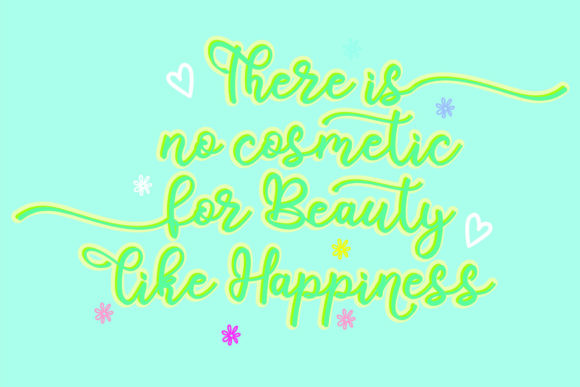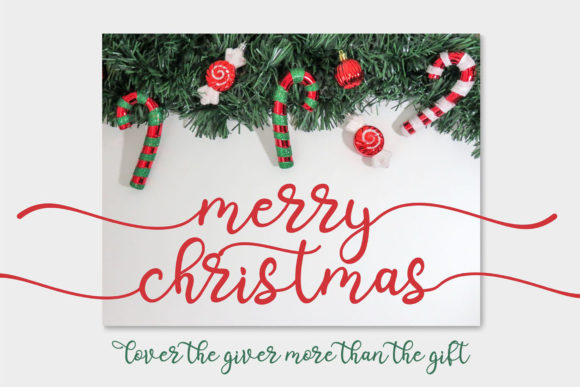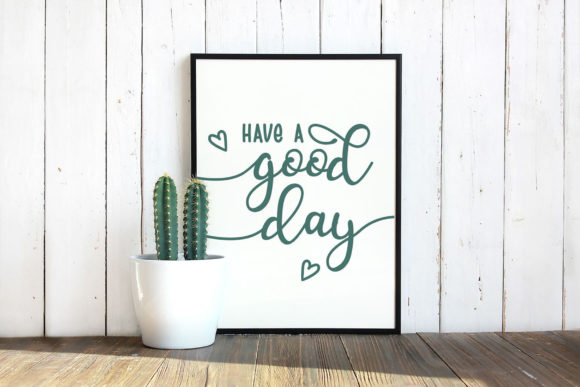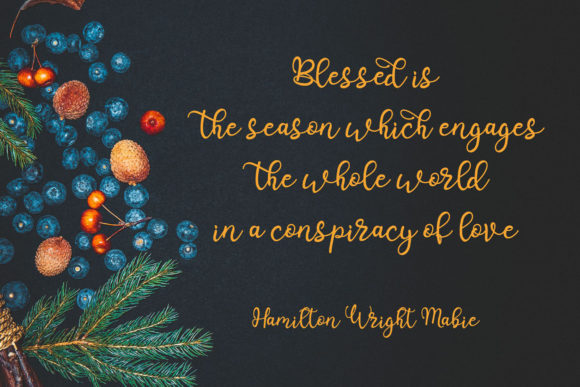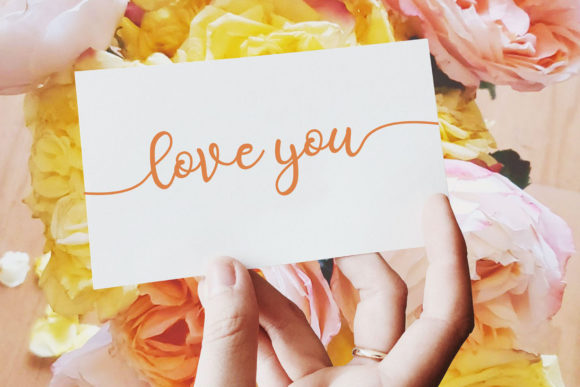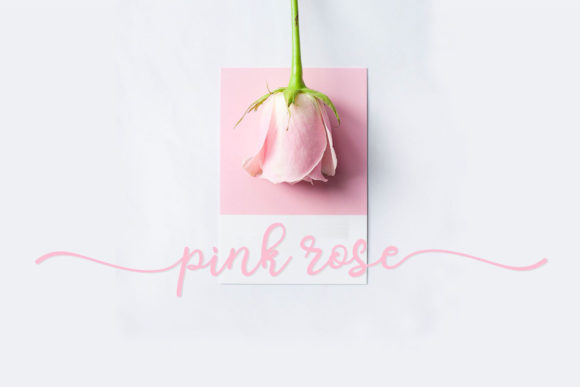
Introduction to La Mas Bonita Font
Have you ever been working on a creative project, pouring your heart and soul into a design, only to realize that the perfect font is just out of reach? For designers, finding the right font can make all the difference between a mediocre design and a masterpiece. That’s why we’re excited to introduce you to La Mas Bonita Font, a stunning swashy font that’s perfect for logos, posters, wedding invitations, quotes, and much more!
La Mas Bonita Font is a high-quality design resource that offers a transparent background, making it easy to customize and use in a variety of creative projects. And the best part? It’s available for free download, making it an invaluable asset for designers on a budget. Whether you’re a seasoned pro or just starting out, La Mas Bonita Font is a valuable addition to your design toolkit.
Key Features of La Mas Bonita Font
- High-quality, free download font suitable for creative projects
- Includes a transparent background for versatile use in design
- Font size: 1,000 characters, covering a wide range of languages
- Resolution: 72 dpi, suitable for digital design applications
- Unique characteristics: elegant script, cursive style, and beautiful flourishes
- Perfect design resource for logos, invitations, and other creative projects
Honest Review: La Mas Bonita Font
La Mas Bonita Font is a stylish and modern script font that I’ve been experimenting with in my latest creative project. Overall, I’m quite pleased with its performance, especially considering that it’s a free download.
- High-quality design: La Mas Bonita Font has a clean and sophisticated look that’s perfect for creative projects.
- Transparent background: The font’s transparent background makes it easy to use on any background image or color.
- Limited font weights: La Mas Bonita Font only comes in a few font weights, which might limit its usability in certain design scenarios.
- Not ideal for large text: The font’s script style might make it difficult to read in large text sizes.
Overall, La Mas Bonita Font is a great addition to any designer’s toolkit. While it has some limitations, its high-quality design and transparent background make it a valuable resource for creative projects. I’d definitely recommend it for designers looking for a stylish and modern script font.
La Mas Bonita Font is a versatile design resource that can be used in a variety of creative projects. To get the most out of it, consider using it with a transparent background to create a clean and modern look. You can also experiment with different font sizes and styles to add visual interest to your design.
La Mas Bonita Font is commonly used in creative projects such as logos, brochures, and social media graphics. It’s also a great choice for designing presentations, reports, and other business materials. With its high-quality design and free download option, La Mas Bonita Font is a valuable resource for designers and non-designers alike.
Can I use La Mas Bonita Font with a transparent background?
Yes, La Mas Bonita Font is a high-quality font that can be used with a transparent background. The font’s design allows for a seamless integration with any background, making it perfect for creative projects that require a clean and modern look.